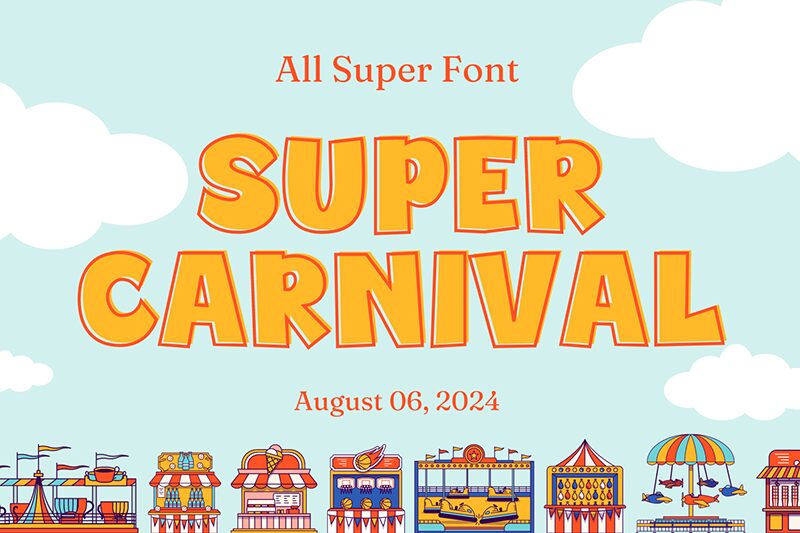
Super Carnival
Super Carnival font by fsuarez913 is an eclectic and vibrant display typeface that brings a playful cartoon style to your design projects. Its bold weight commands attention, making it perfect for headlines and eye-catching graphics. The whimsical shapes and exaggerated characters add a sense of fun and excitement, ideal for children's books, party invitations, or any creative project seeking a lively touch.
With its unique style, Super Carnival font can infuse energy into marketing materials or event posters. Moreover, this free font is available for download, allowing designers to easily incorporate its distinctive flair into diverse applications. Whether you're crafting a festive advertisement or designing a playful logo, Super Carnival offers the bold expression needed to stand out in today's visual landscape.